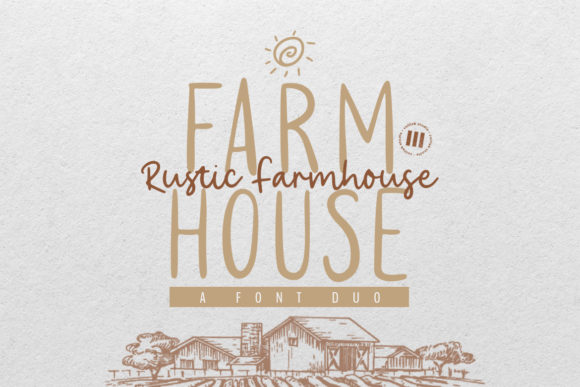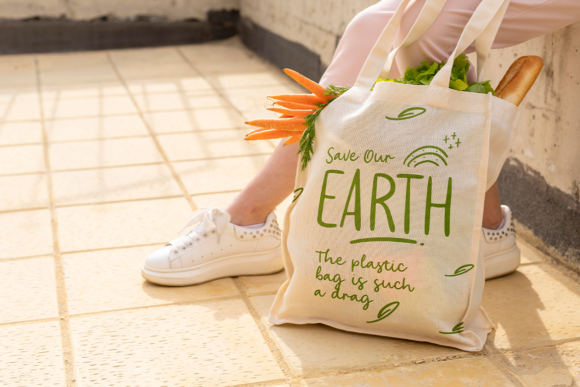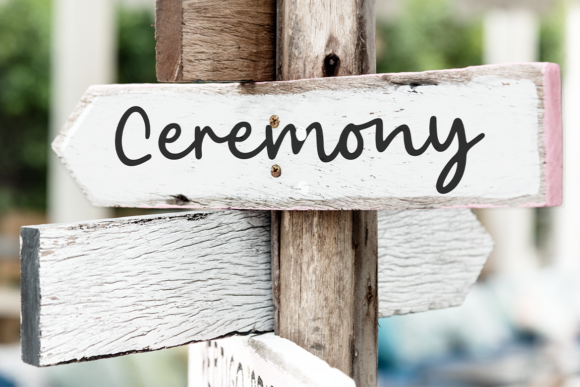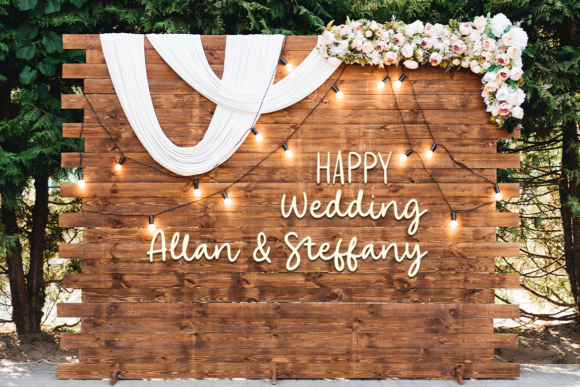
Rustic Farmhouse Font: A Cute Sans Serif & Dingbat Duo for DIY Crafts
About the Rustic Farmhouse Font
Get ready to be inspired by Rustic Farmhouse Font, a fresh and dynamic typeface for modern creators. Rustic Farmhouse is a lovely duo font (script and sans serif). This font is PUA encoded which means you can access all of the glyphs and swashes with ease!
Rustic Farmhouse excels in projects requiring a touch of rustic charm and handcrafted authenticity. It’s ideal for branding applications such as logos for bakeries, coffee shops, or craft businesses, as well as short headlines on posters or invitations. The script font works beautifully for handwritten-style quotes or short product descriptions.
However, avoid using it for large blocks of body text or UI elements. The script’s decorative nature compromises readability at smaller sizes. The sans-serif companion is more suitable for short supporting texts, but isn’t optimized for lengthy paragraphs.
For optimal pairings, consider pairing the script with a clean sans-serif like Lato for a modern contrast, or a classic serif like Playfair Display for a more traditional feel. The sans-serif component pairs well with geometric sans-serifs such as Montserrat for a consistent, modern look or with a playful rounded sans-serif for a more approachable feel. The overall personality of Rustic Farmhouse is warm, inviting, and slightly informal.
Rustic Farmhouse Font Usage Examples
Rustic Farmhouse Font Example